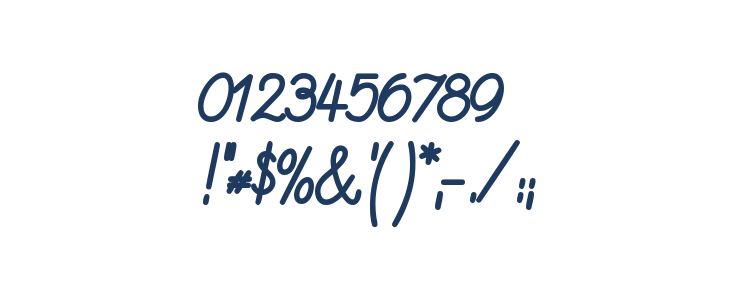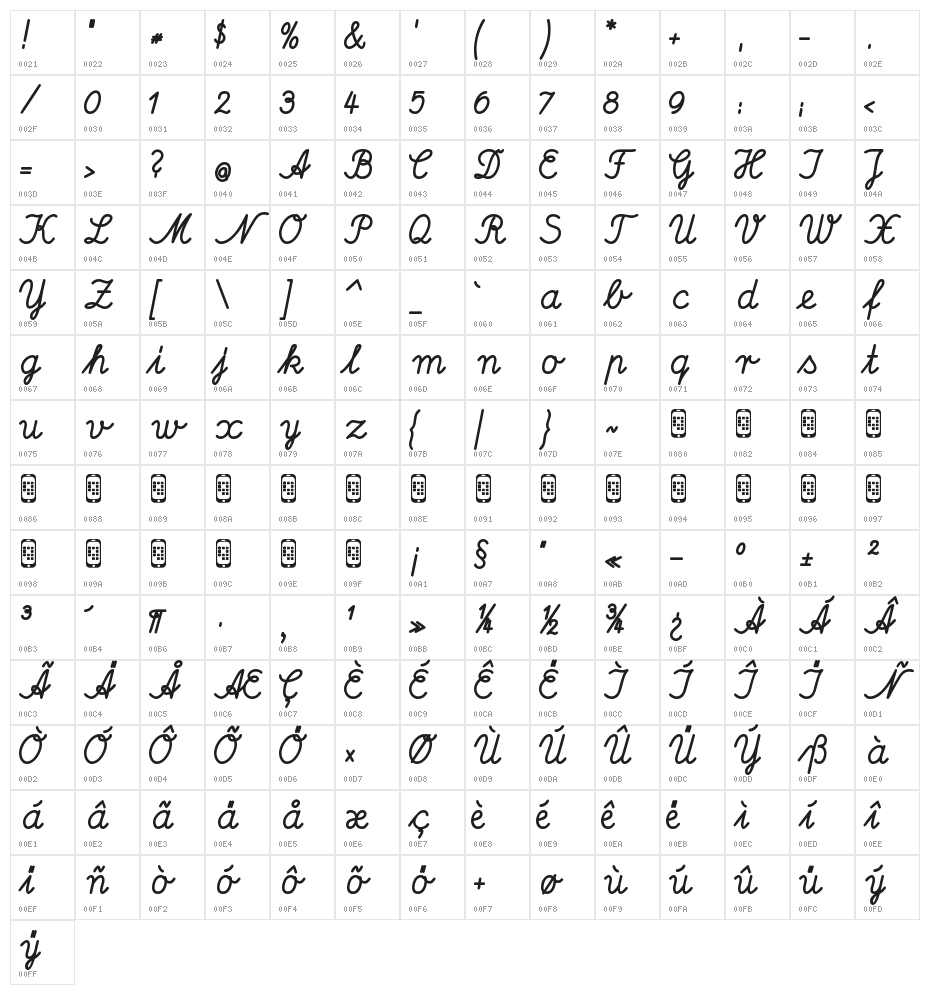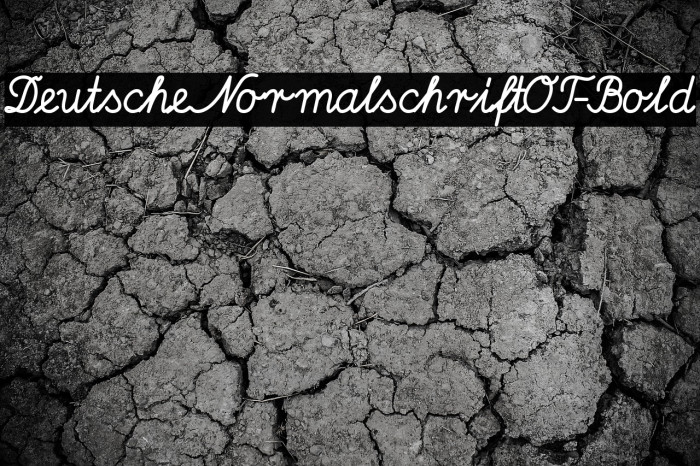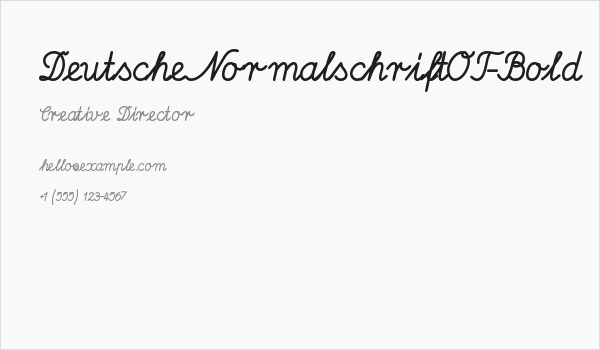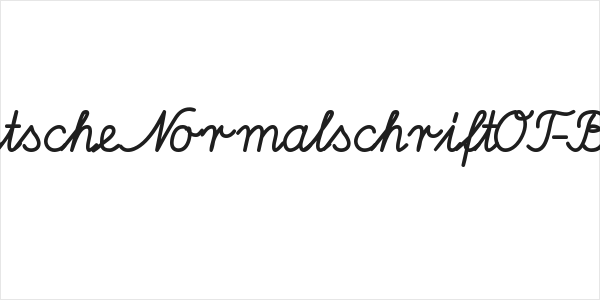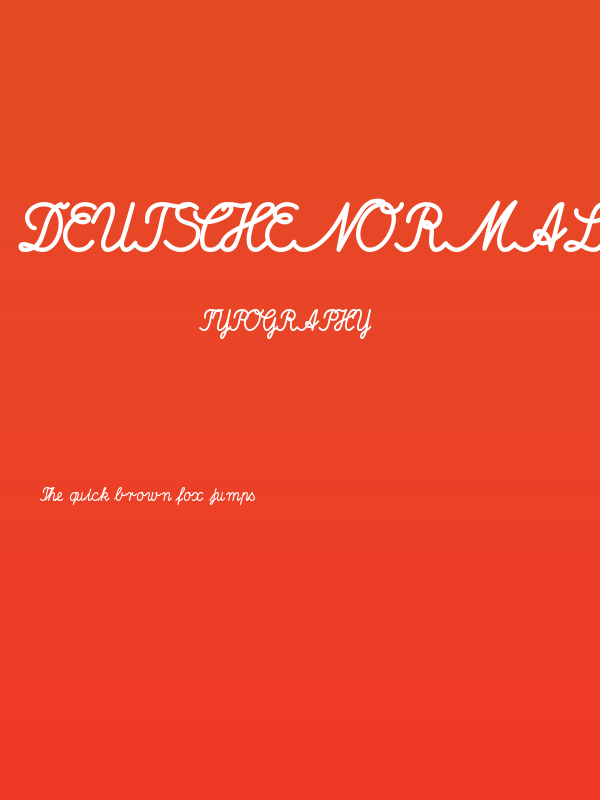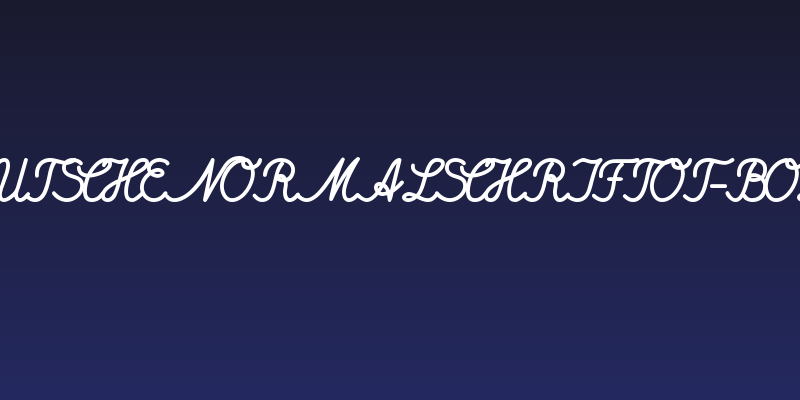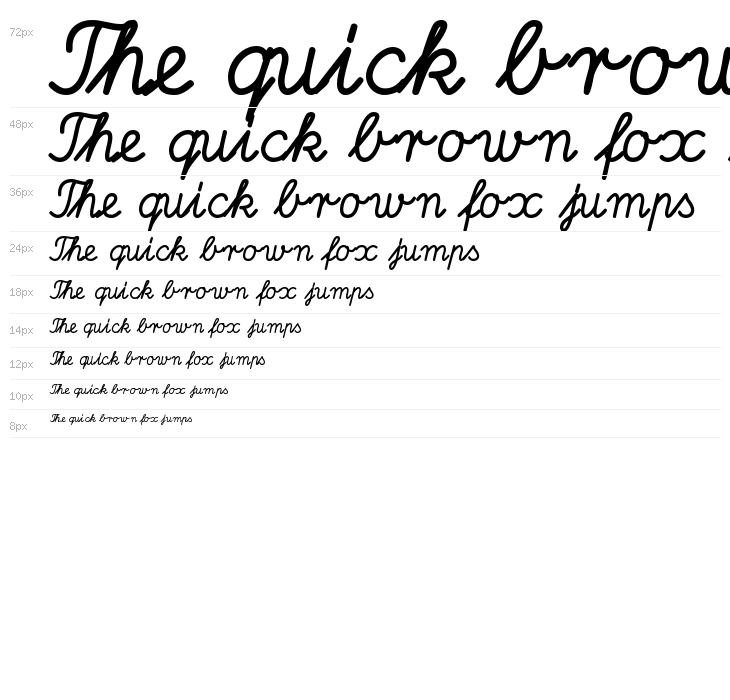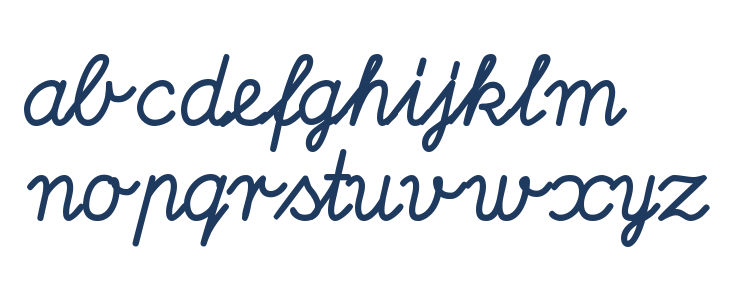
DeutscheNormalschriftOT-Bold Font
DeutscheNormalschriftOT-Bold Description
This font features a bold, cursive style with a flowing, handwritten appearance. The letters are interconnected, creating a seamless and elegant look. The uppercase characters maintain a consistent height, while the lowercase letters exhibit a slight slant, enhancing the script's fluidity. Numbers and special characters are designed to match the overall cursive theme, ensuring uniformity across all glyphs. The strokes are thick and consistent, providing a strong visual impact, suitable for decorative purposes.